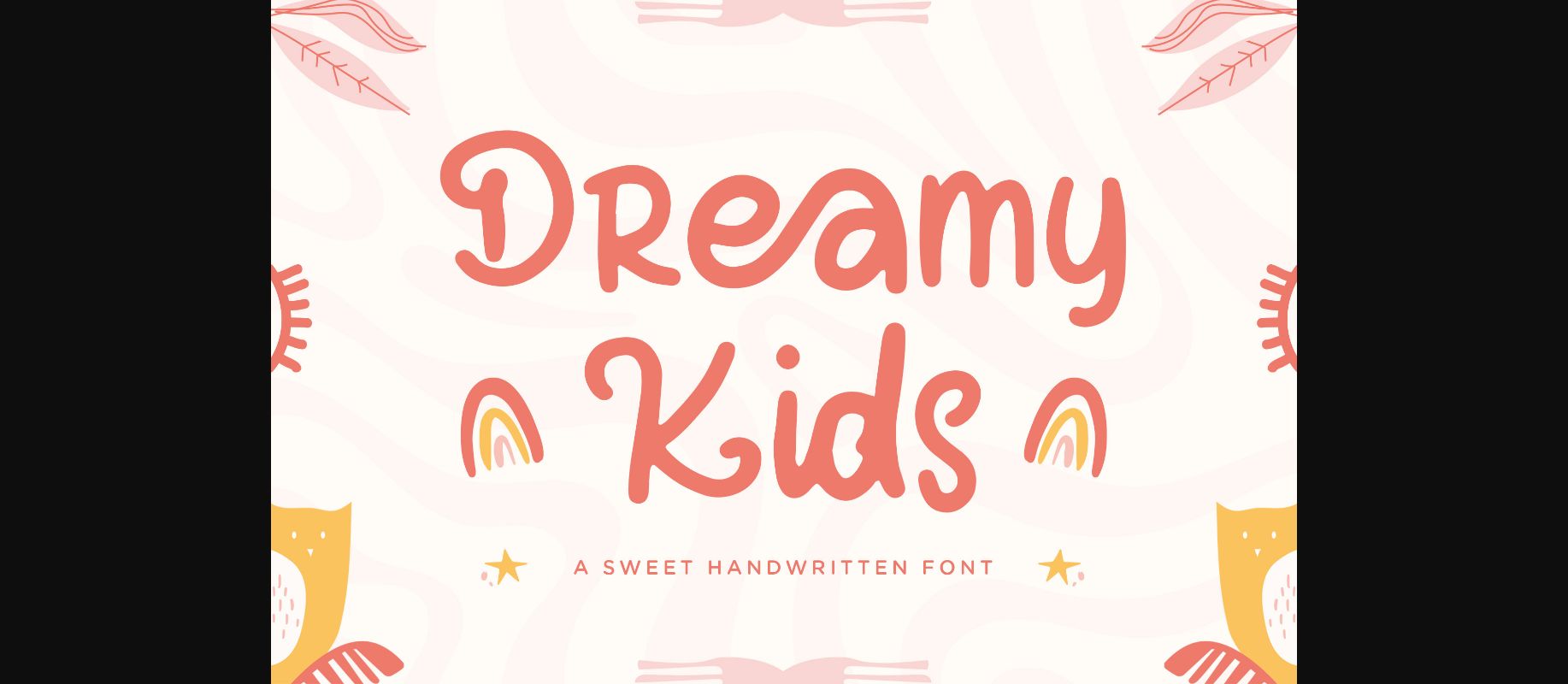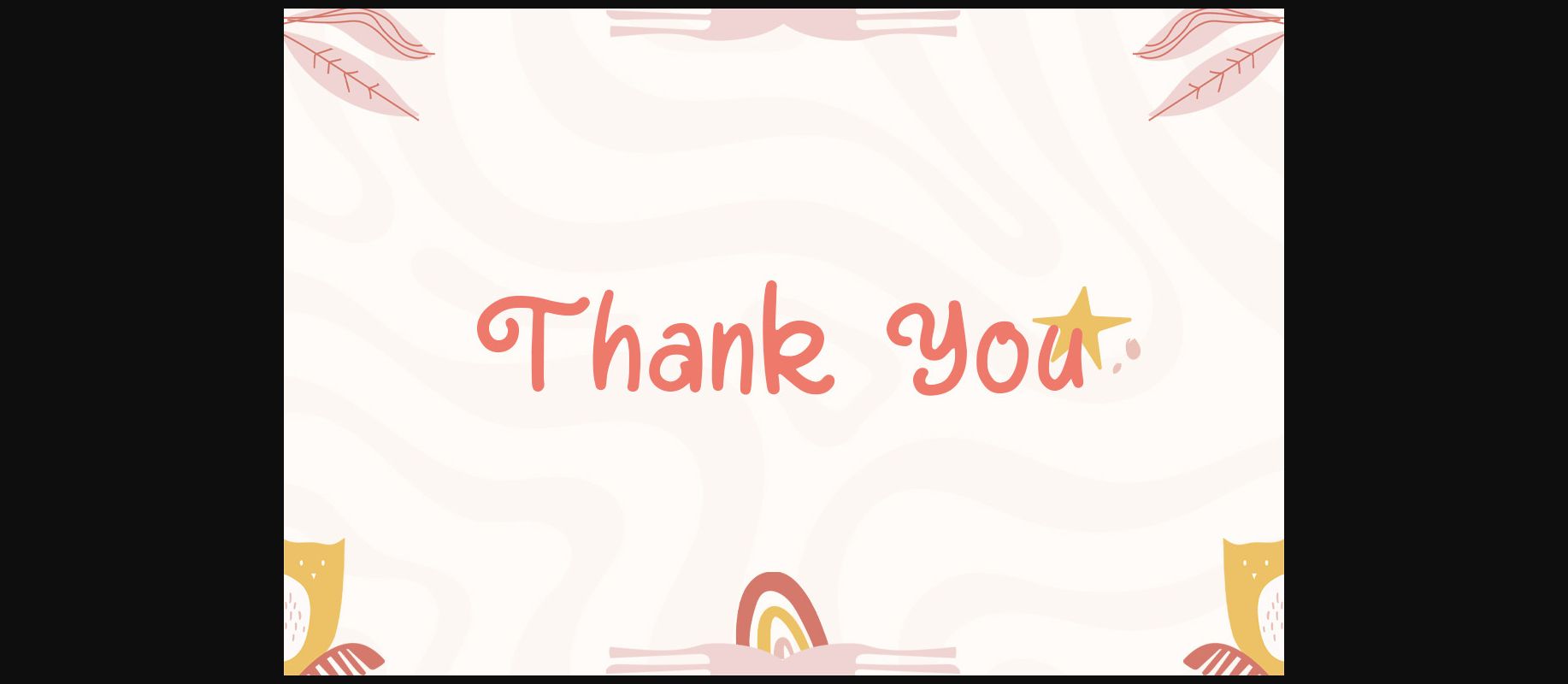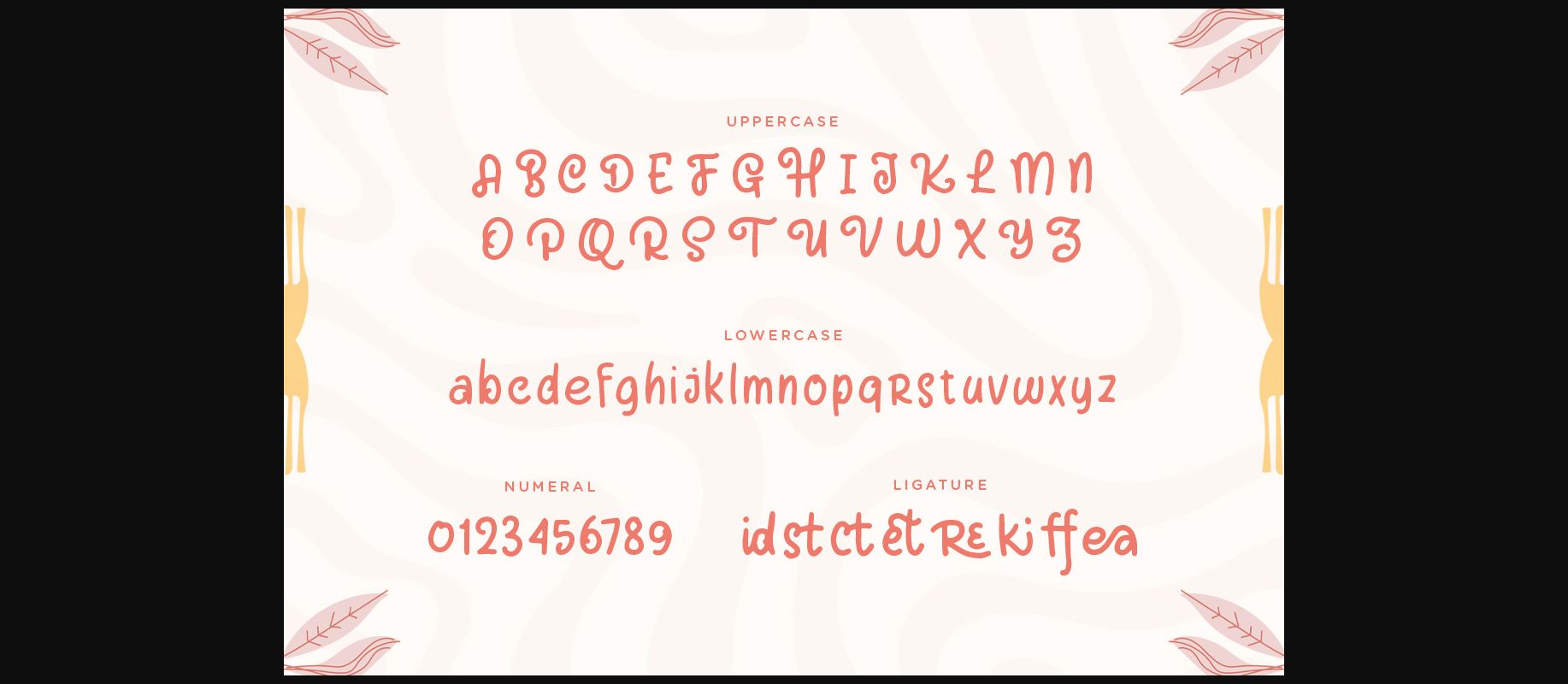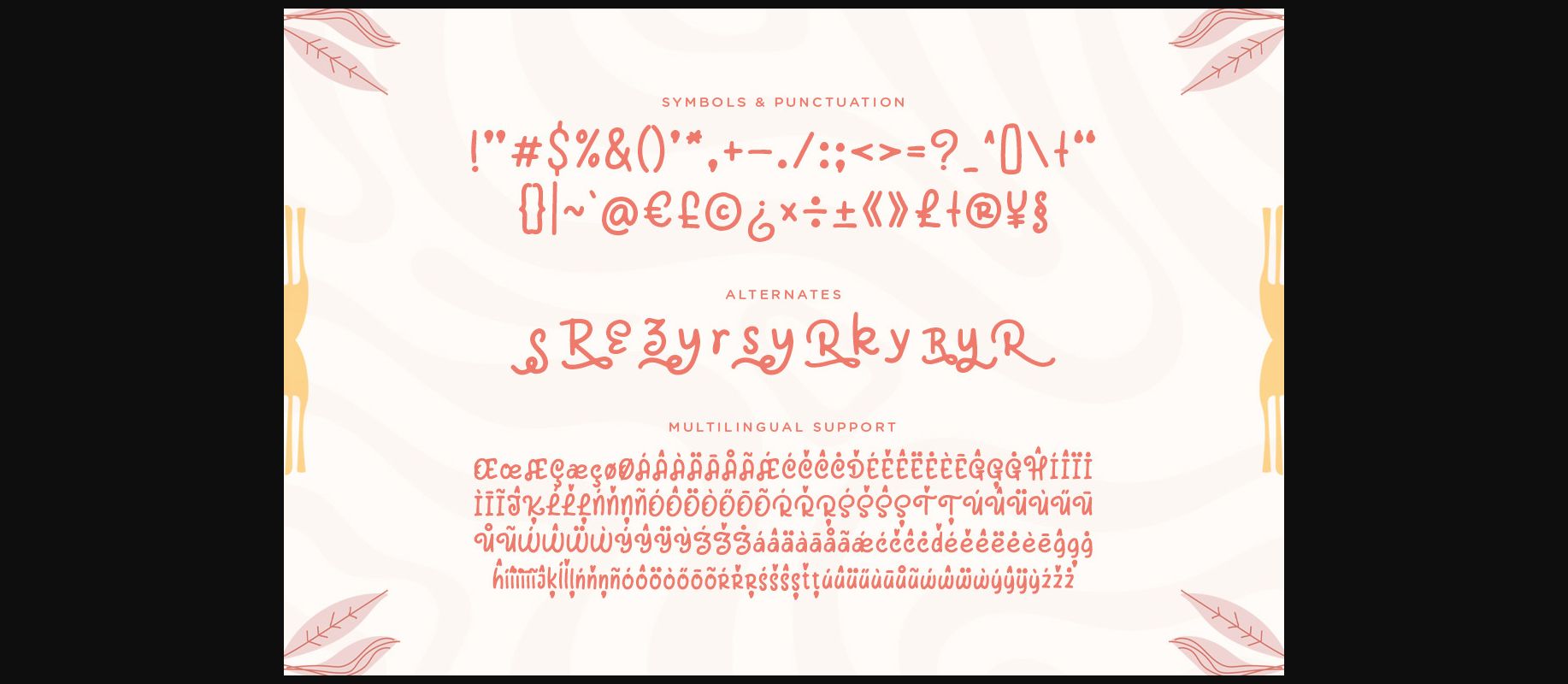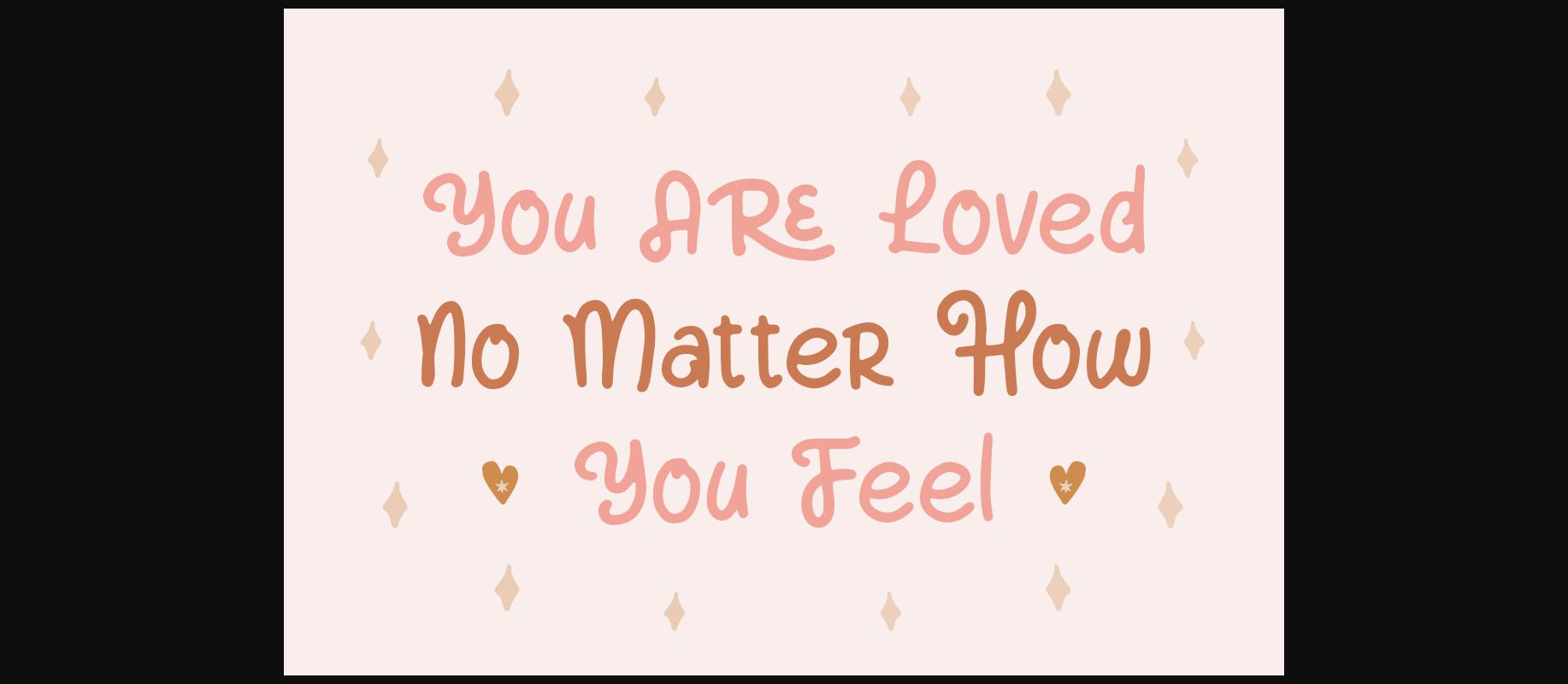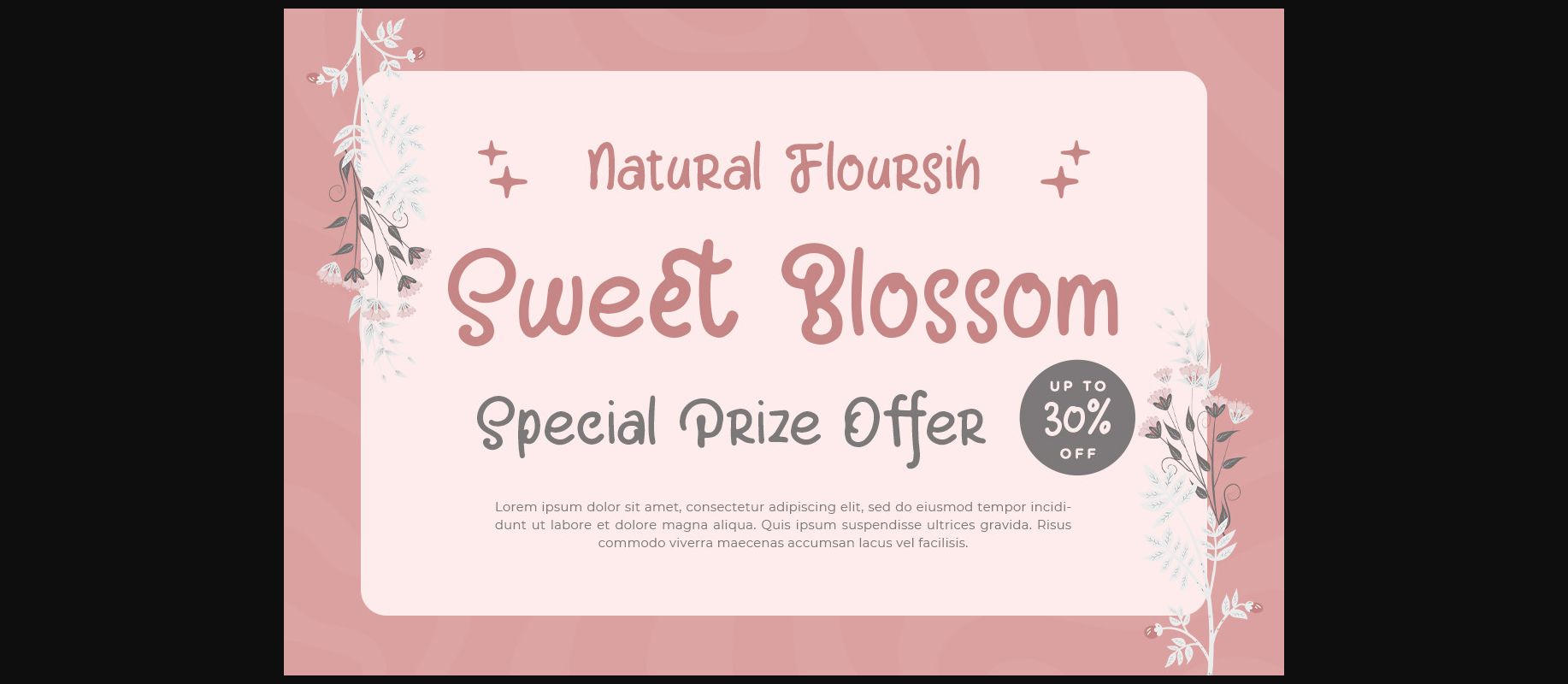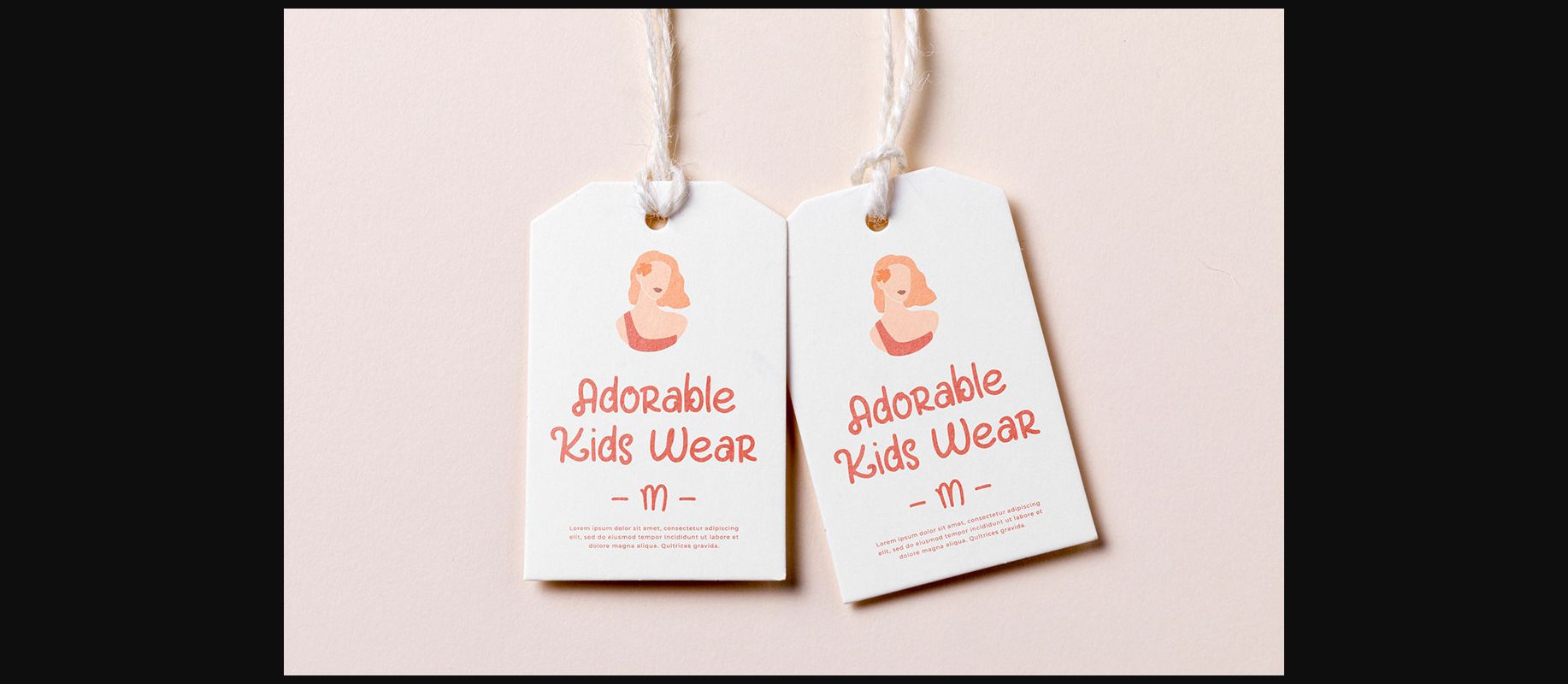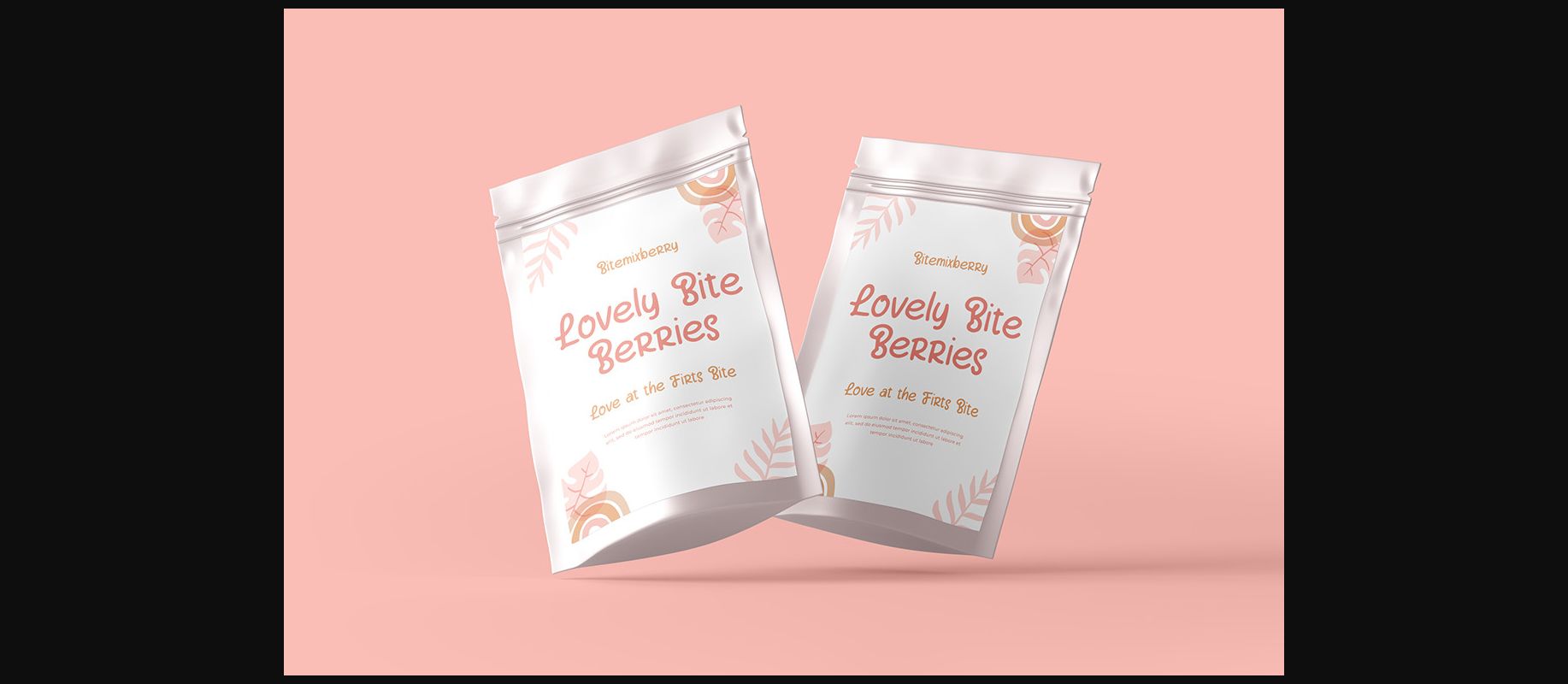
About Dreamy Kids Font
Dreamy Kids is a fancy handwritten font, carefully crafted to become a true favorite.
This font will look outstanding in any context, whether it’s being used on busy backgrounds or as a standalone headline!